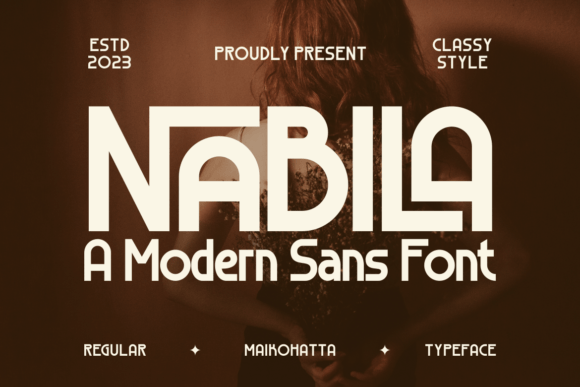
Introducing Nabila - Beauty Sans Font - Modern Font, a bold and authentic display font, crafted with meticulous attention to detail to bring your creative visions to life. This extraordinary font is a masterpiece that exudes elegance and sophistication, empowering you to make a lasting impression with every design project you undertake.
Journey into the world of Nabila, a sans serif font that captivates with its unwavering strength and undeniable charm. Its carefully constructed letterforms dance upon the page, creating a visual symphony that commands attention and ignites imagination. With Nabila as your creative ally, you'll leave an indelible mark on the hearts and minds of your audience.
Unleash the boundless possibilities of Nabila - Beauty Sans Font - Modern Font, and elevate your creative endeavors to unprecedented heights. Its versatility knows no bounds, making it the perfect choice for a myriad of projects, including logos, branding materials, website designs, social media graphics, and much more. Allow Nabila to be your guiding light, illuminating your path to creative excellence.
Immerse yourself in the beauty of Nabila's meticulously crafted glyphs and ligatures, effortlessly accessible through PUA encoding. Explore a world of endless possibilities, where every character dances in perfect harmony, creating captivating compositions that leave a lasting impression. Let Nabila be your muse, inspiring you to weave tales of elegance and grace through the art of typography.
With Nabila - Beauty Sans Font - Modern Font at your fingertips, you'll discover a newfound confidence in your creative abilities. Its unwavering boldness empowers you to make a statement, leaving an indelible mark on the world of design. Embrace the transformative power of Nabila, and watch as your creative vision blossoms into a symphony of visual splendor.